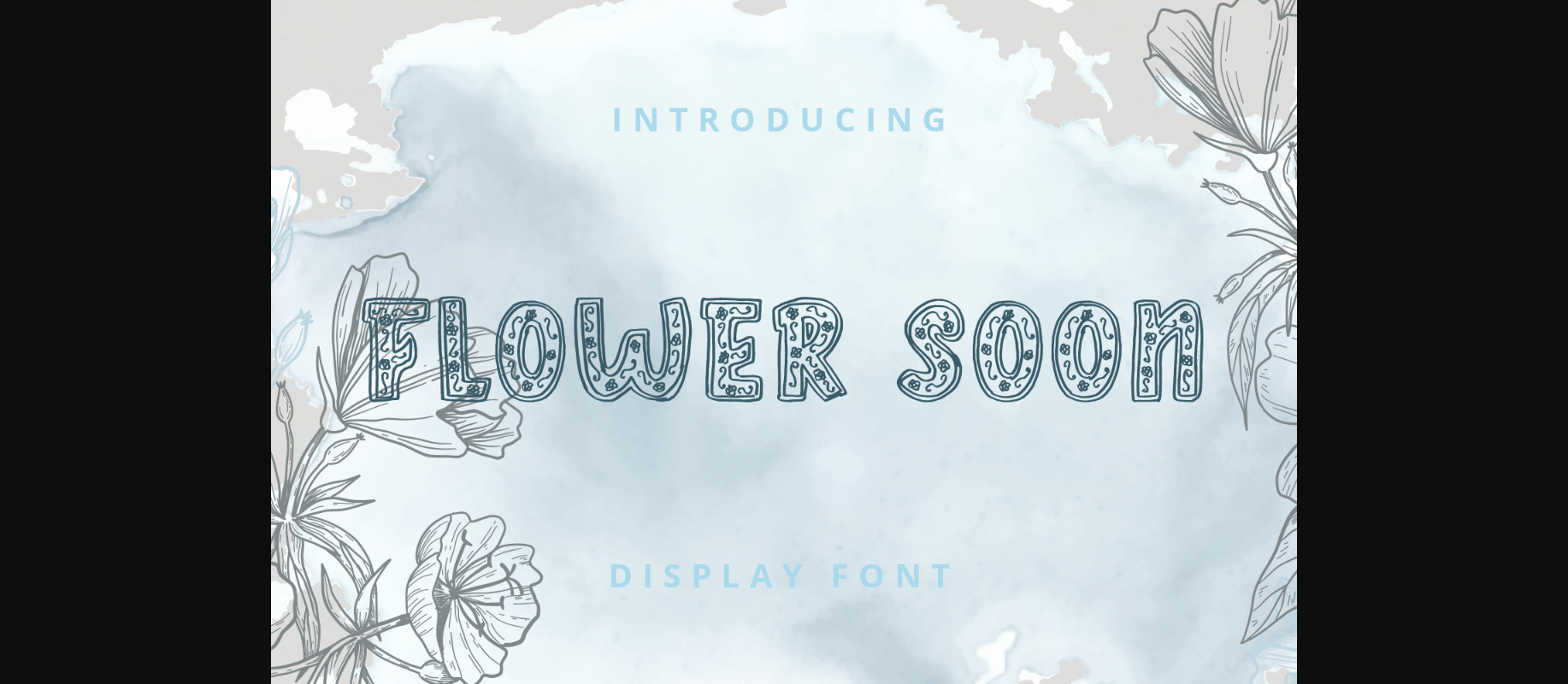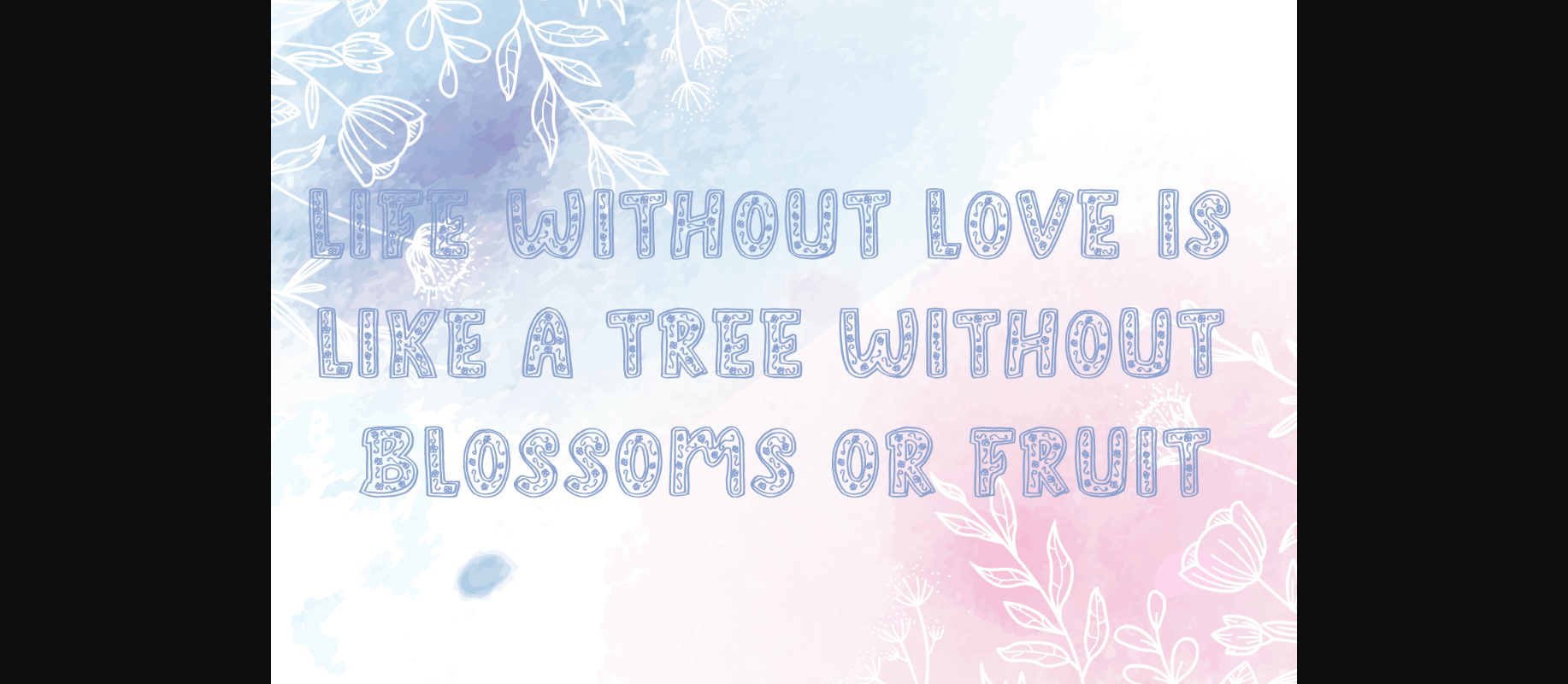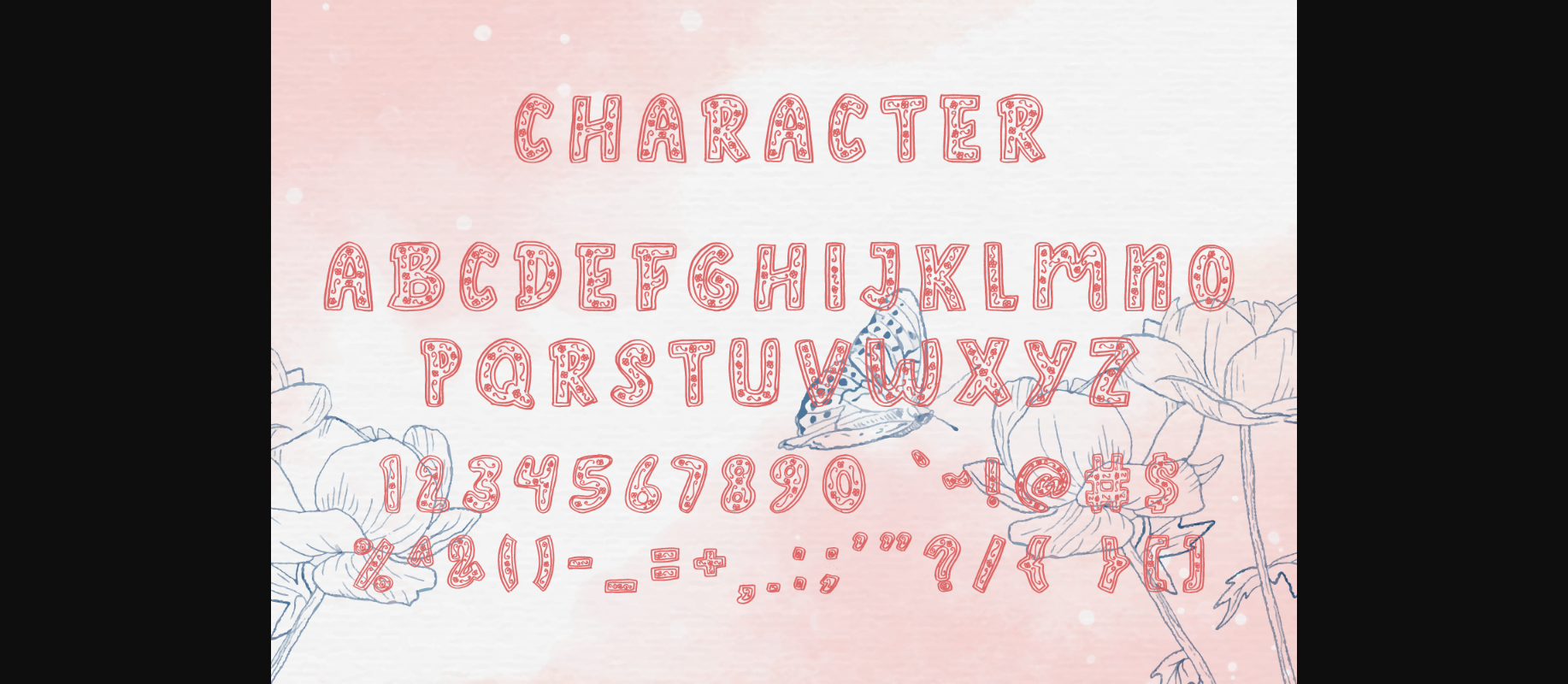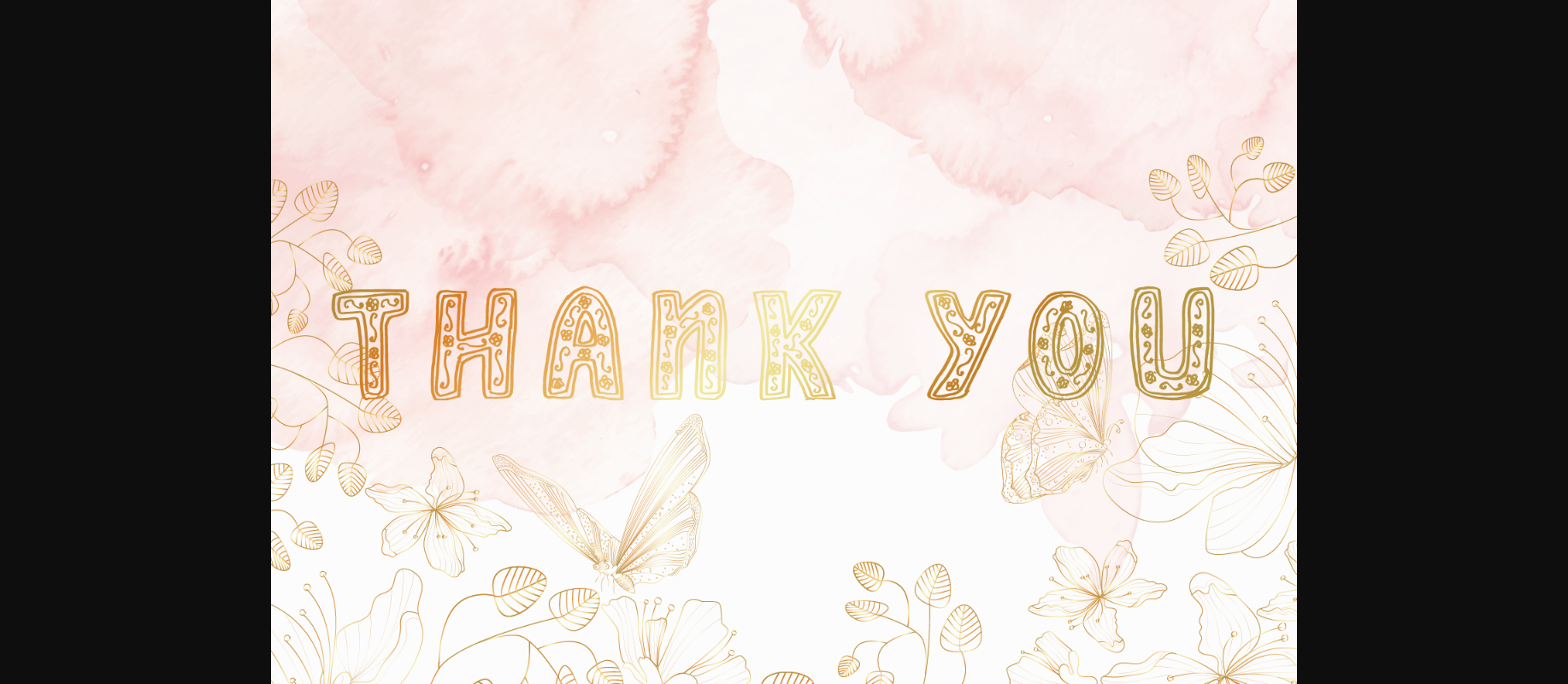
Flower Soon Font
About Flower Soon Font
Flower Soon is a cute and charming decorative font. Whether you use it for cartoon related designs, children games or just any creation that requires a lovely touch, this font will be an amazing choice.